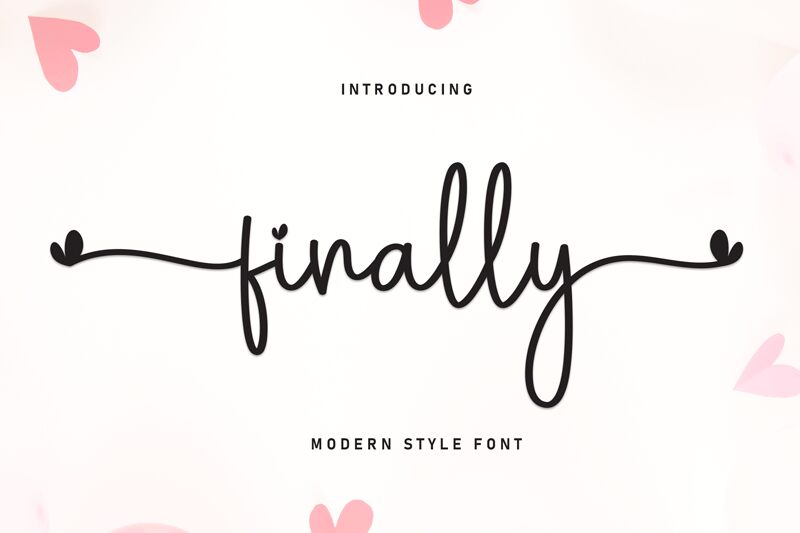
Finally
Finally font from Scratchones is a light handwritten font with a signature style and elegant smooth flow. It offers a modern appeal in each glyph, which evokes inviting warmth and personal touch in your projects. Its charm lies in its ability to bring out the beauty of simplicity together with glamorous details that never go unnoticed.
This free handwritten font is perfect for signatures, branding work, advertisements, logos, business cards/letterheads, book covers/titles, magazine/newsletter covers/articles page design ideas within fashion blogs or lifestyle websites plus more creative design ideas you may have!